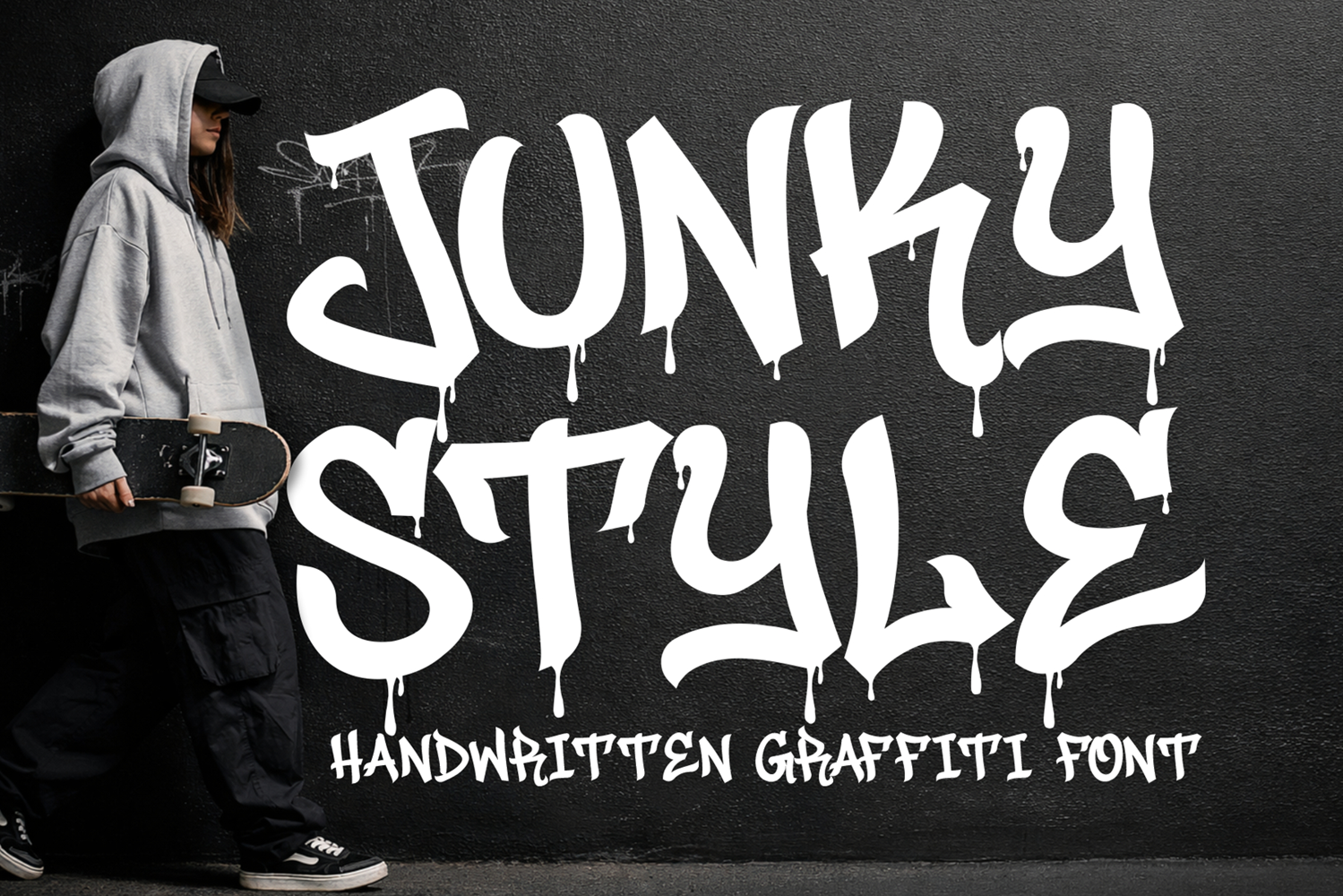
Junky Style | Dripping Urban Graffiti Font
Junky Style is a powerful graffiti display font that embodies the raw spirit of urban street culture. Inspired by the expressive nature of street tagging and spray paint art, this typeface delivers a bold and unapologetic visual identity. Its defining feature lies in its dripping letterforms, which simulate the effect of fresh paint running down surfaces, creating a sense of motion, energy, and authenticity.
Each character in Junky Style is carefully designed to reflect the imperfect beauty of hand-drawn graffiti. The irregular shapes and organic flow give the font a natural rhythm that feels alive and dynamic. This makes it an excellent choice for designers looking to create impactful visuals that stand out in a crowded digital and print landscape.
The font includes a complete set of uppercase and lowercase characters, allowing for flexible and creative compositions. The uppercase letters are bold and commanding, perfect for headlines and attention-grabbing titles, while the lowercase characters provide balance and versatility for supporting text. Additionally, Junky Style comes with numbers and punctuation, ensuring full functionality across various design applications.
With multilingual support, Junky Style is suitable for global projects, enabling designers to communicate effectively across different languages. This makes it a reliable choice for branding, advertising, and digital content aimed at diverse audiences.
Junky Style is particularly well-suited for projects that require a strong urban aesthetic. It works perfectly for streetwear branding, music album covers, posters, gaming graphics, YouTube thumbnails, and social media campaigns. The font’s bold presence and unique dripping style make it ideal for youth-oriented and edgy designs that demand attention.
In web design, Junky Style can be used to create striking headlines and banners that immediately capture user interest. Its high readability and strong visual impact ensure that messages are delivered clearly and effectively. For print projects, the font maintains its clarity and detail, making it suitable for large-scale designs such as posters and merchandise.
The dripping effect adds a distinctive character that sets Junky Style apart from traditional display fonts. It introduces texture and depth, giving designs a more immersive and engaging feel. This feature makes it especially valuable for creative professionals who want to push boundaries and experiment with bold visual styles.
Overall, Junky Style is more than just a typeface—it’s a creative tool that allows designers to express individuality and capture the essence of urban culture. Its combination of bold design, versatility, and authentic street-inspired aesthetics makes it a must-have for anyone looking to create impactful and memorable designs.